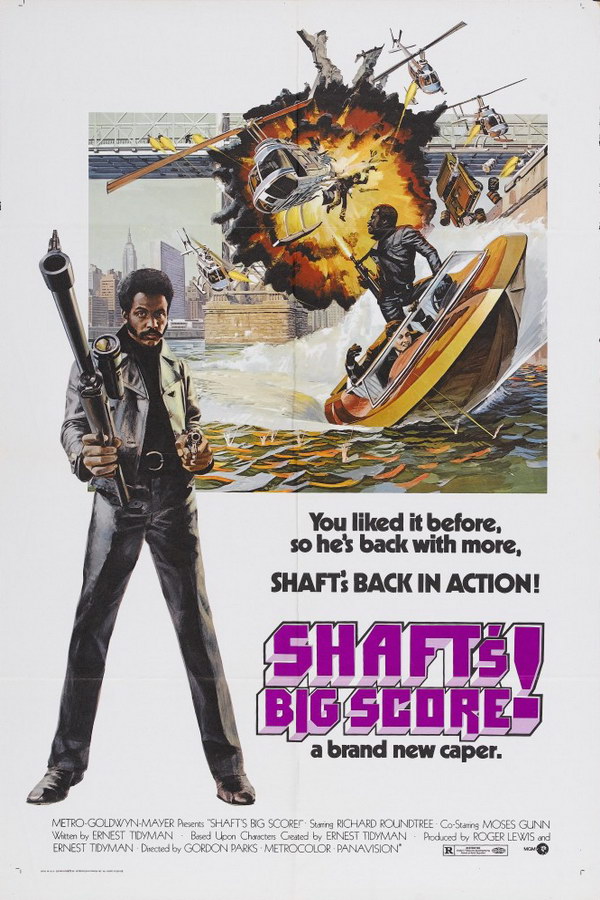
Shaft’s Big Score Font
CrimeShaft’s Big Score! is a 1972 crime film that follows private detective John Shaft as he investigates a series of murders and a large-scale robbery in New York City.
The movie title on the poster likely features the ITC Pioneer font, which was created by Tom Carnase. This commercial font features bold, outlined capital letters with a shadow effect. For more information about the font click here.